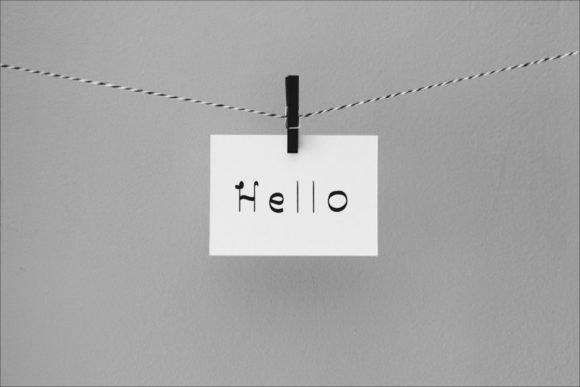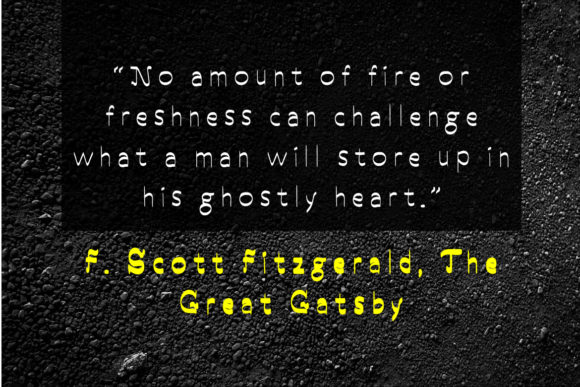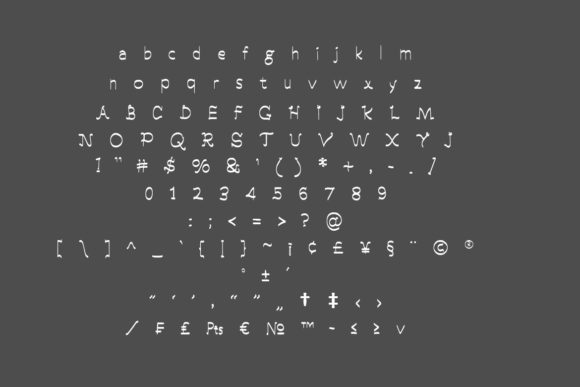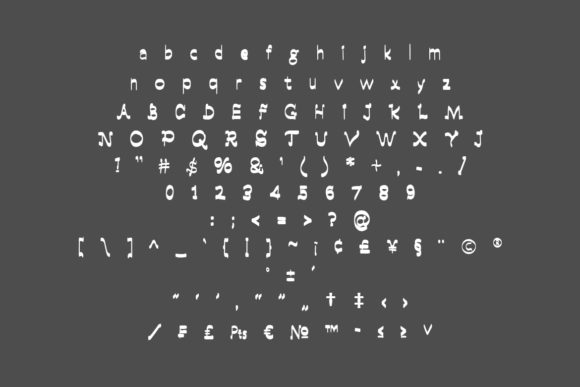
Introduction to Joaquim Font
Have you ever stared at a blank page, trying to come up with the perfect design for your next creative project? The cursor blinks away, taunting you with its emptiness. But what if you had the perfect font to spark your imagination? That’s where the Joaquim Font comes in – a fun, handwritten font that’s guaranteed to add a touch of authenticity to your design.
As a valuable resource for designers, the Joaquim Font offers a high-quality, free download that can elevate any project. With its unique feel and transparent background, it’s the perfect tool to add a personal touch to your designs. Whether you’re working on a logo, poster, or social media graphics, the Joaquim Font is sure to inspire your creativity.
Key Features of Joaquim Font
- High-quality font design resource, perfect for creative projects and designs
- Features a transparent background, allowing for easy customization and layering
- Comes in a range of sizes, from 12pt to 72pt, making it versatile for various design applications
- Designed with a high resolution of 300 DPI, ensuring crisp and clear text output
- Unique characteristics include a modern and elegant design, making it ideal for use in logos, headings, and body text
Honest Review: Joaquim Font
I recently stumbled upon Joaquim Font and was immediately drawn to its unique, hand-drawn design. As a designer, I’m always on the lookout for high-quality resources to elevate my creative projects, and I’m excited to share my thoughts on this free download.
What works well: ✨ The Joaquim Font is incredibly versatile, with a transparent background that makes it easy to use on a variety of design elements. The font is also highly customizable, with a range of styles and weights to choose from. Whether I’m working on a logo, branding project, or social media graphics, Joaquim Font is a reliable choice.
- High-quality, hand-drawn design
- Customizable styles and weights
⚠️ However, I do wish there were more language support options available. As it stands, Joaquim Font is primarily geared towards English-speaking designers, which can be a limitation for those working on global projects.
Overall, I’m thoroughly impressed with Joaquim Font and would highly recommend it to designers looking for a high-quality, free design resource. With its unique design and versatility, it’s sure to become a staple in my toolkit for years to come.